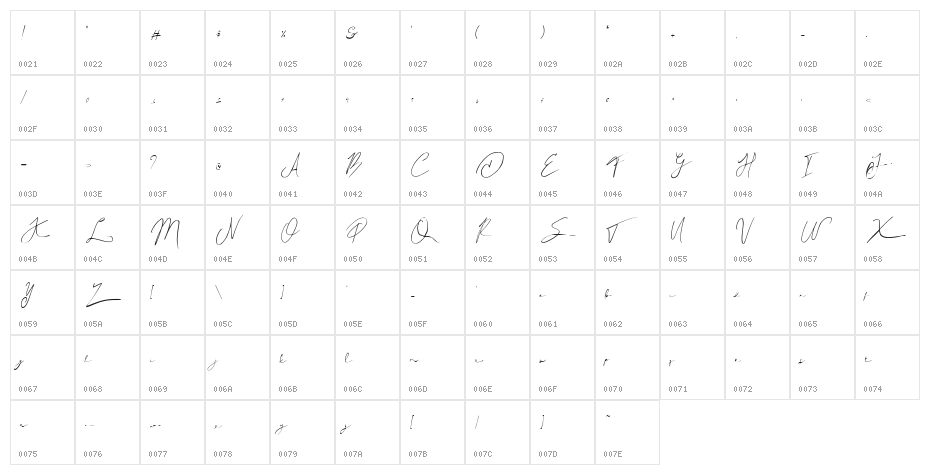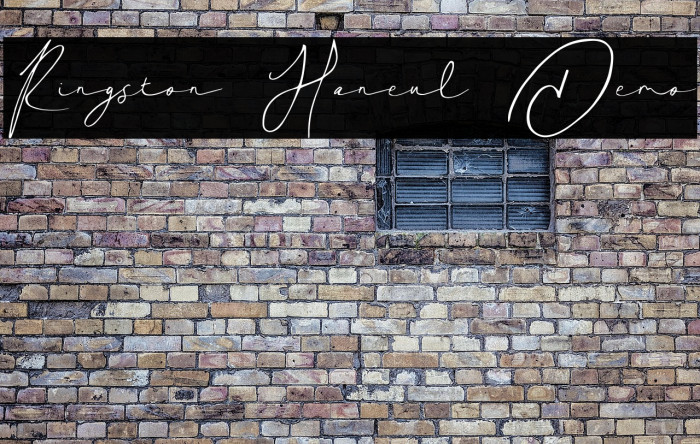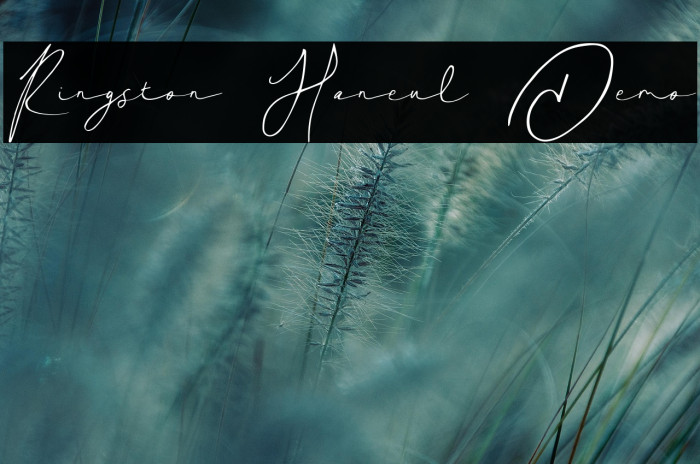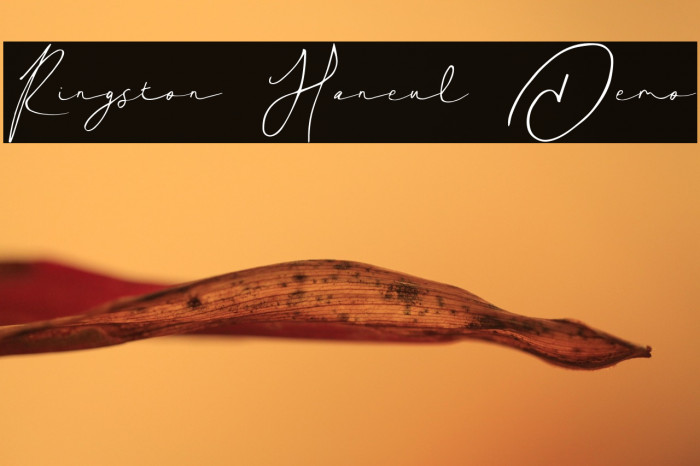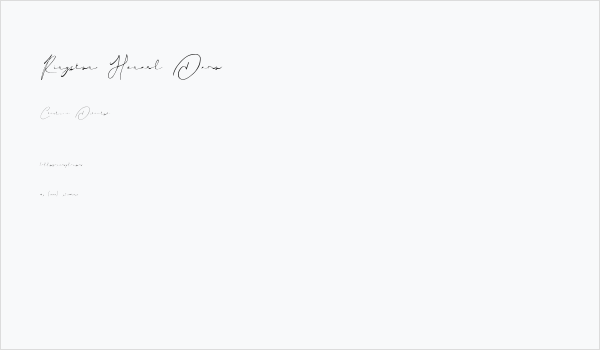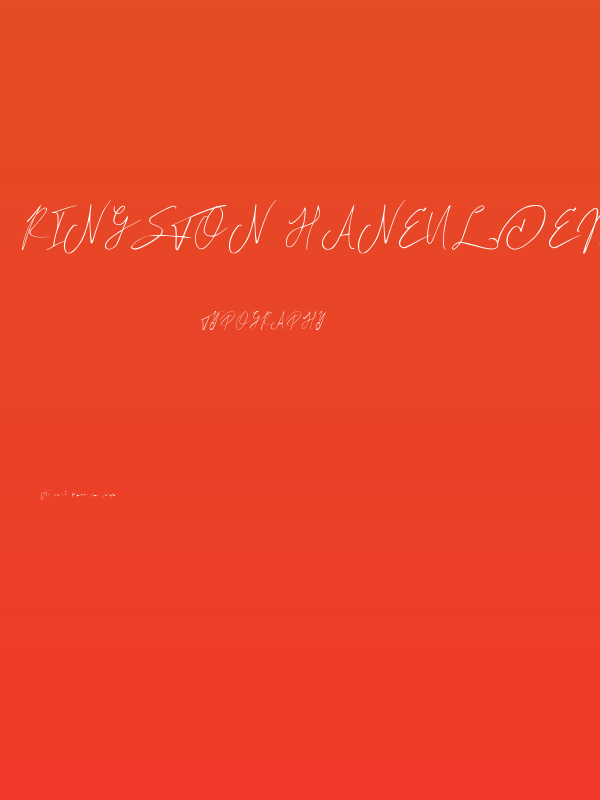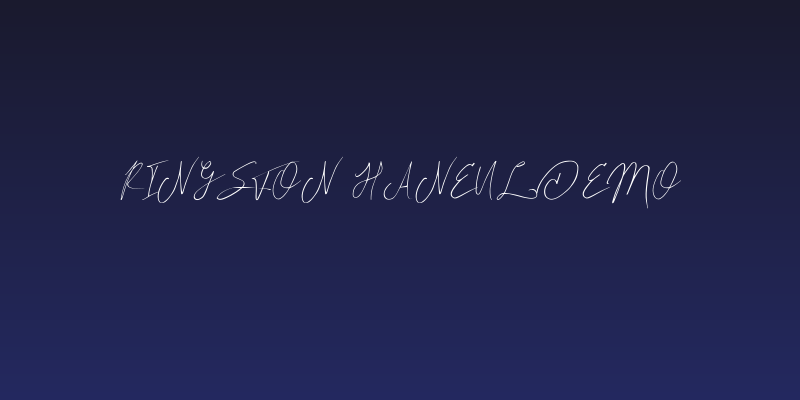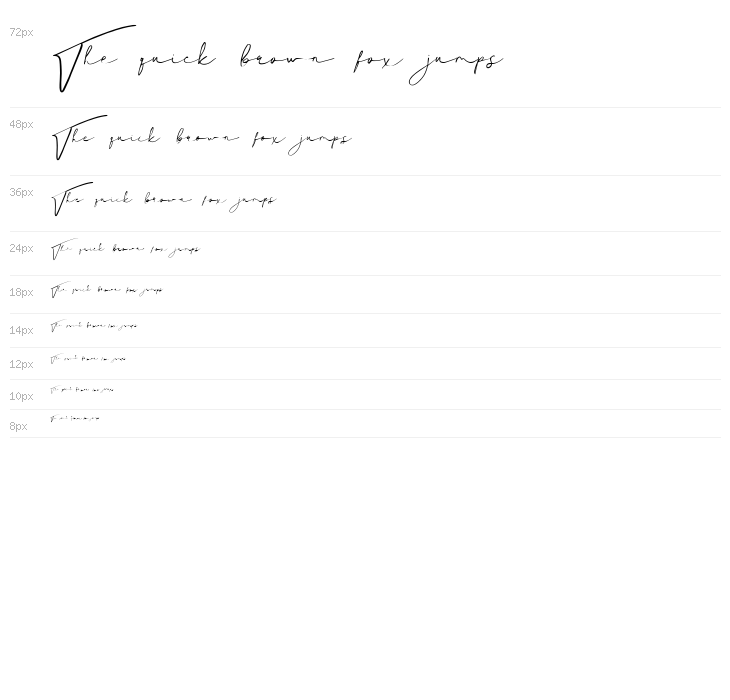
Ringston Haneul Demo Font
Ringston Haneul Demo Description
This elegant script font features a fluid, handwritten style with graceful, sweeping curves and delicate lines. The uppercase letters are bold and expressive, while the lowercase characters maintain a consistent flow, enhancing readability. The numerals and special characters are crafted with the same attention to detail, ensuring a cohesive look across all text. The font's overall appearance is sophisticated and artistic, making it ideal for projects that require a personal touch.
| Overall Style | Elegant, Artistic |
| Proposed Projects | Ideal for wedding invitations, greeting cards, personal branding, and artistic projects. |